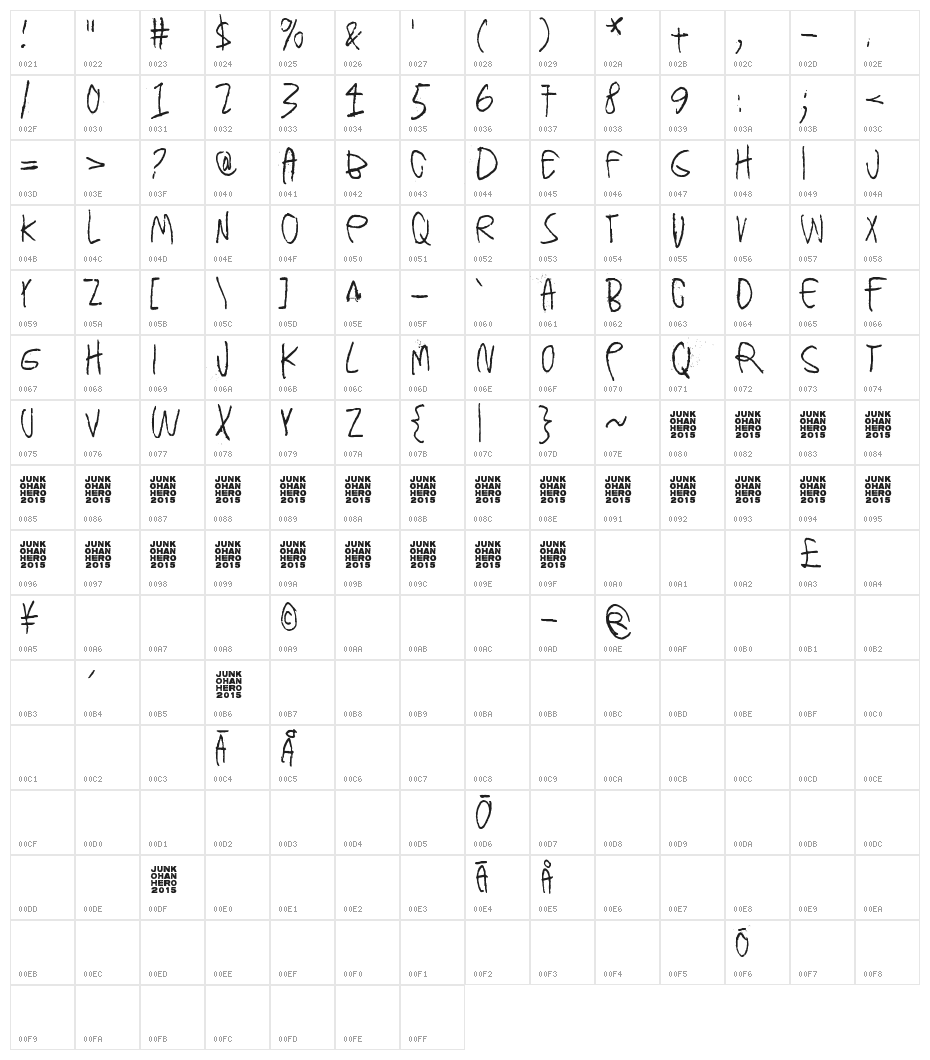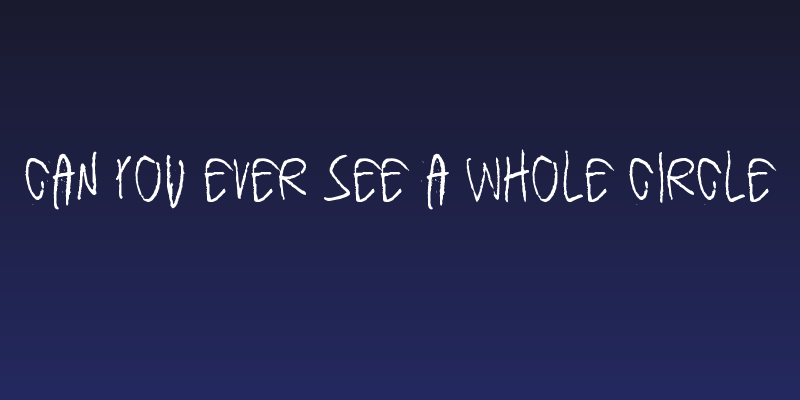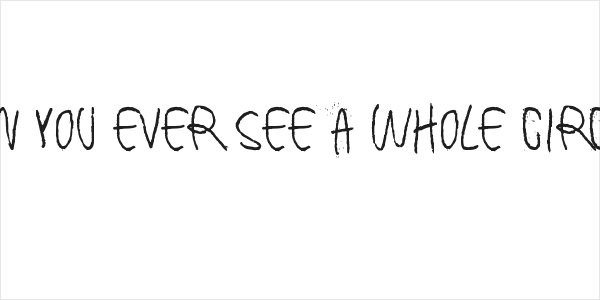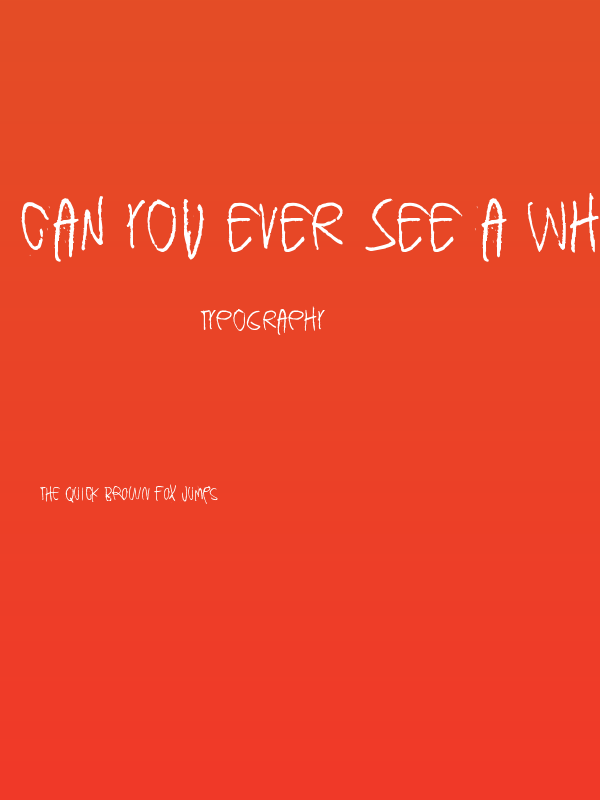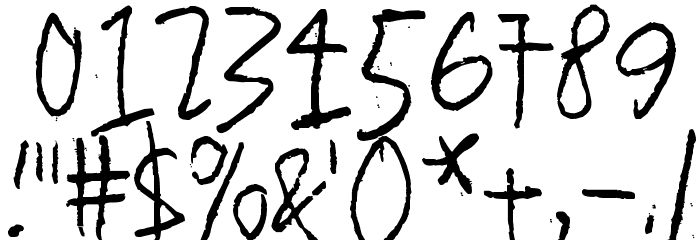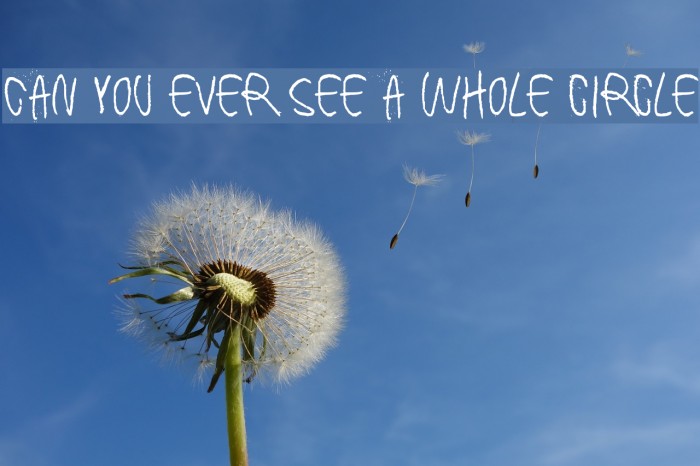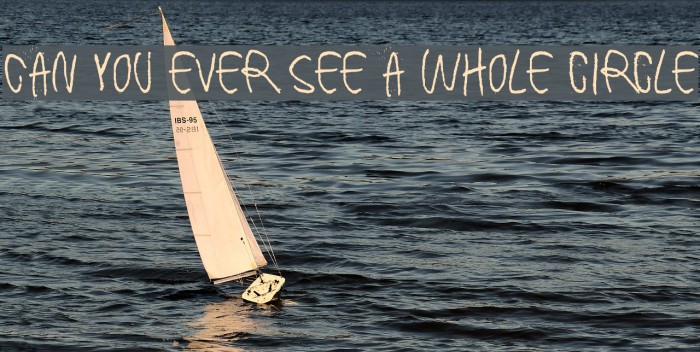
Can you ever see a whole circle Font
Can you ever see a whole circle Description
This font features a hand-drawn, rough style that mimics the appearance of casual handwriting with a brush or marker. The characters are uneven and slightly irregular, giving them a dynamic and energetic feel. The uppercase and lowercase letters maintain a consistent height, while the numbers and special characters follow the same informal aesthetic. The strokes are bold and expressive, with varying thickness that adds to the font's organic look. This style is reminiscent of graffiti or street art, making it suitable for projects that require a bold, artistic touch.